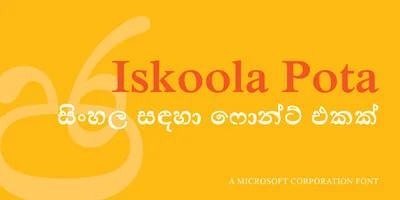
Iskoola Pota Font is perfect for educational institutions, academic publications, multilingual documents, cultural heritage projects, Sri Lankan organizations, Southeast Asian branding, scholarly research materials, government communications, and any project requiring authentic Sinhala typography with educational clarity and cultural respect.
What makes Iskoola Pota Font exciting is its educational heritage that represents the foundational spirit of learning and knowledge transmission in Sri Lankan culture with clean, readable letterforms designed specifically for academic excellence. This distinguished typeface embodies the scholarly tradition of the Sinhala script with modern functionality that ensures optimal readability for students and educators. The font's institutional character and cultural authenticity make it perfect for educational materials that honor Sri Lankan linguistic heritage while meeting contemporary digital standards.
The Iskoola Pota Font family includes regular weight with complete Sinhala character set, Unicode compliance, proper diacritical marks, numerals, and essential punctuation for authentic Sinhala text composition. The font maintains consistent educational clarity throughout all characters while ensuring excellent performance across digital platforms and print materials.
Whether you're developing educational curricula, creating academic publications, or designing cultural preservation materials with authentic Sinhala script, Iskoola Pota Font delivers unmatched educational functionality and cultural integrity. This respected typeface transforms Sinhala text into clear, accessible learning materials that honor Sri Lankan educational traditions and linguistic heritage. The font's proven academic application makes it ideal for schools, universities, and cultural institutions. Download this essential font today and support authentic Sinhala education with typography designed specifically for learning excellence and cultural preservation.